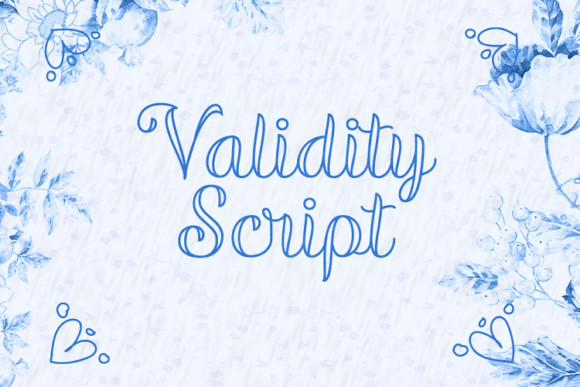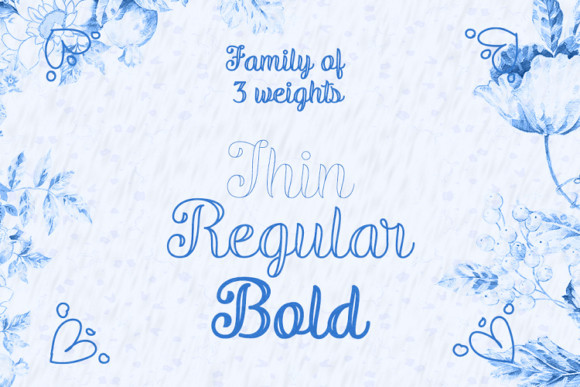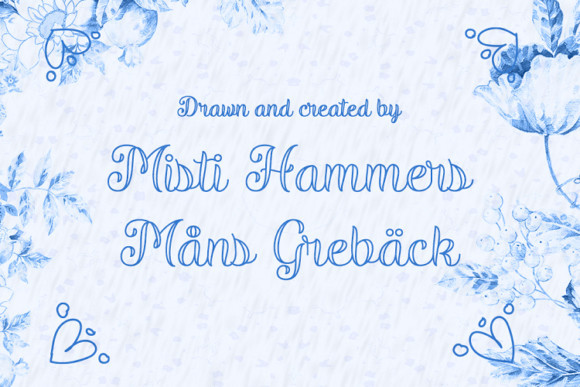
Validity Font
Validity is inspired by classic typography and brings its own unique style to any design project. Use this gorgeous and unique handwritten font to bring any DIY project to life!